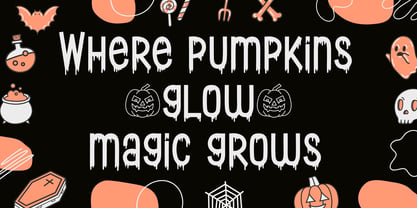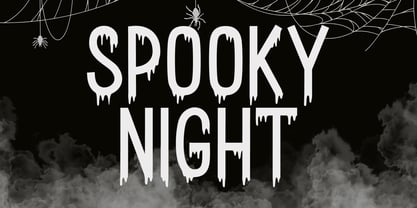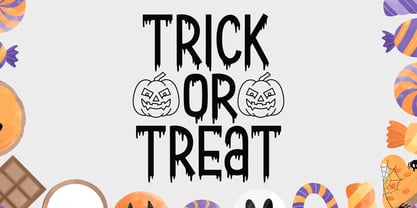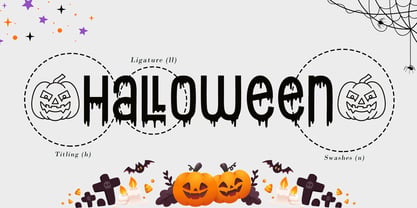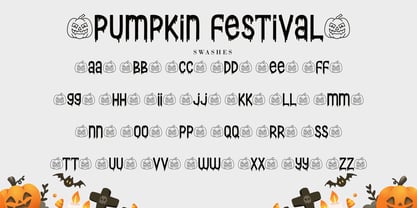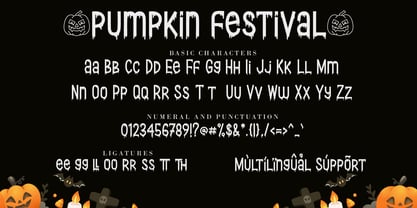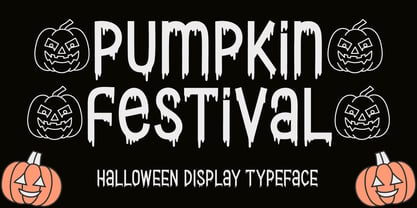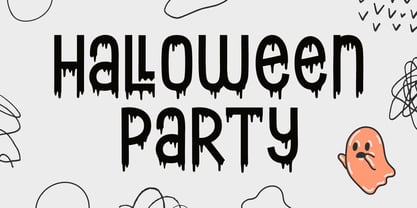
Pumpkin Festival
by AEN Creative Studio
The Pumpkin Festival Font Family was designed by Agung Eko Nugroho and published by AEN Creative Studio. Pumpkin Festival contains 2 styles and family package options. More about this family
Pumpkin Festival is a playful Halloween display font featuring tall letterforms and spooky dripping details. Inspired by pumpkins, haunted attractions, and festive autumn celebrations, this typeface is perfect for posters, invitations, party decorations, social media graphics, merchandise, and seasonal branding. Add a fun Halloween touch to any creative project with Pumpkin Festival.
Designers: Agung Eko Nugroho
Foundry: AEN Creative Studio